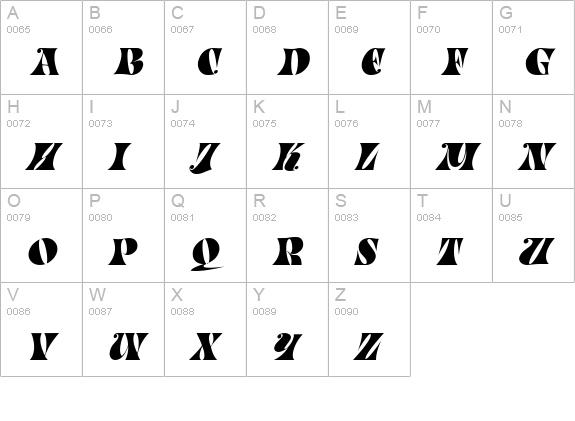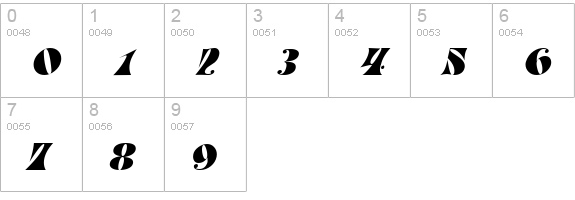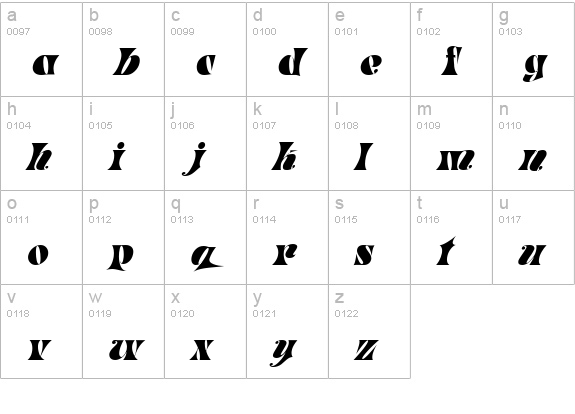
Parade Italic is a distinctive, italic variant in the Parade typeface family \xE2\x80\x94 well suited to design and typography projects.
Parade Italic is a remarkable and elegant font that exudes sophistication and charm. Its slanted and graceful letterforms create a sense of movement and fluidity, making it perfect for conveying a sense of excitement and celebration. Each letter is meticulously crafted with delicate curves and subtle serifs, adding a touch of finesse to any design. This font is not only visually appealing, but it also offers great versatility. Whether you're designing invitations for a glamorous event, creating eye-catching headlines for a magazine spread, or crafting a stylish logo, Parade Italic will effortlessly elevate your project to the next level. One of the best things about Parade Italic is that it is available for free. Yes, you read that right! This stunning font can be freely downloaded at FontsMarket.com, allowing you to enhance your designs without any additional cost. Its availability for free makes it a valuable asset for both professional designers and casual enthusiasts alike. With its striking aesthetic and convenient accessibility, Parade Italic is a font that will undoubtedly make a lasting impression. So go ahead and download this exquisite typeface today, and let your creativity shine through with every stroke of the pen.